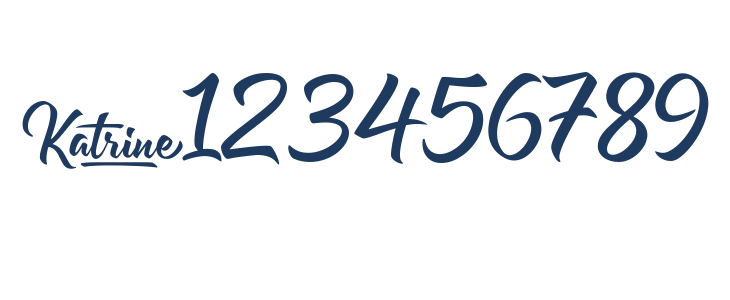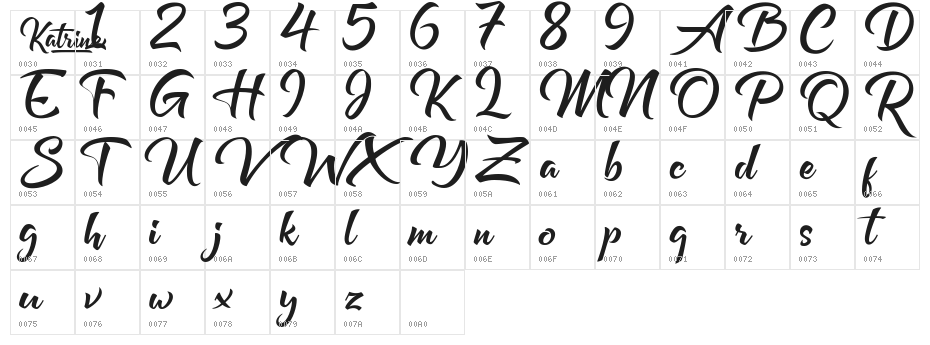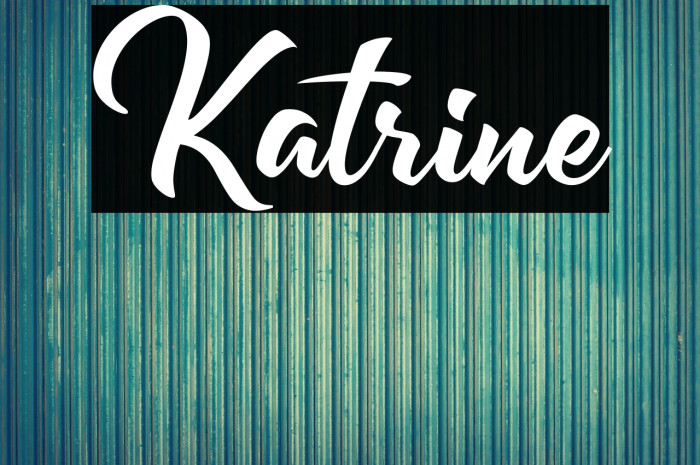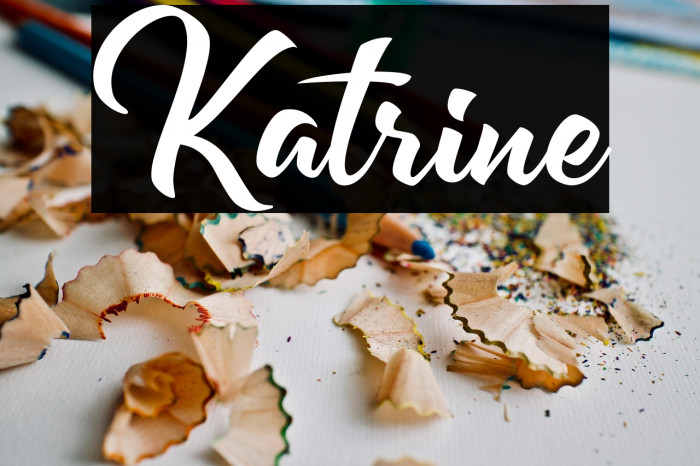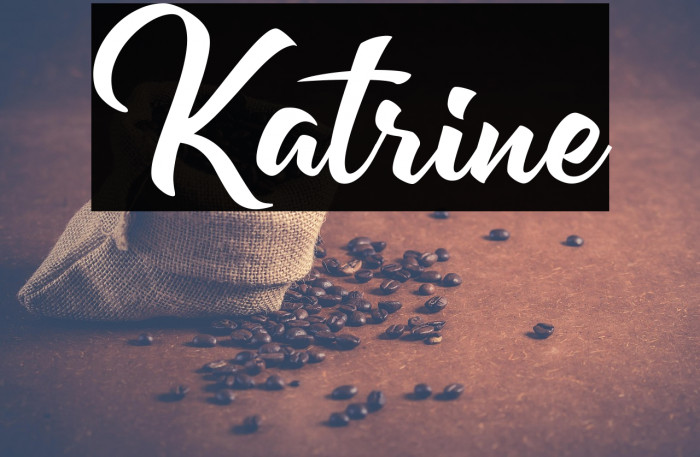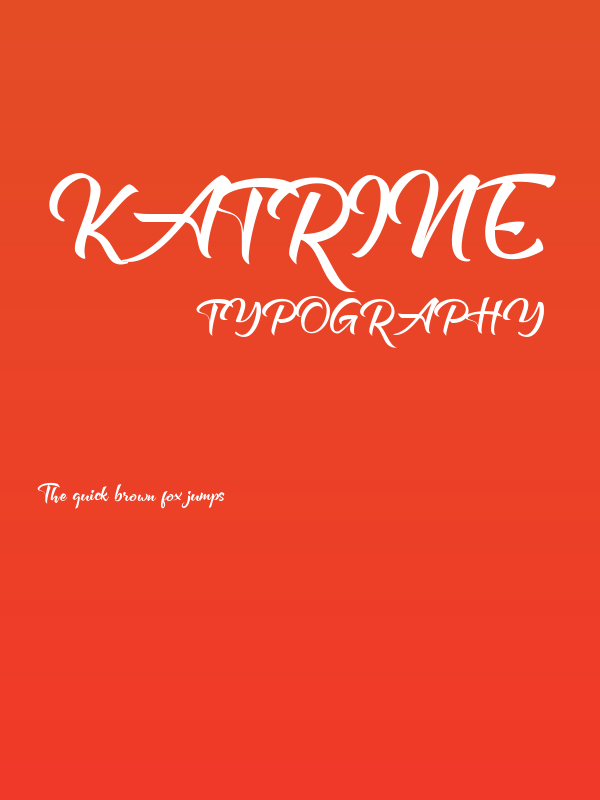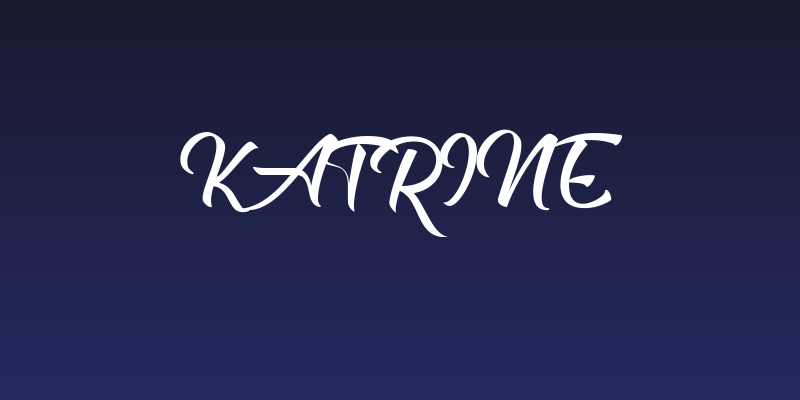
Katrine Font
Katrine Description
This font features a dynamic and flowing script style, characterized by its elegant curves and smooth transitions between letters. The uppercase letters are slightly more formal, with a graceful slant and consistent stroke width, while the lowercase letters exhibit a more playful and casual appearance. The numbers maintain the same fluidity, ensuring a cohesive look throughout. The font's overall design is both stylish and versatile, making it suitable for a variety of creative applications. Its unique flair is enhanced by the subtle variations in stroke thickness, adding depth and visual interest.